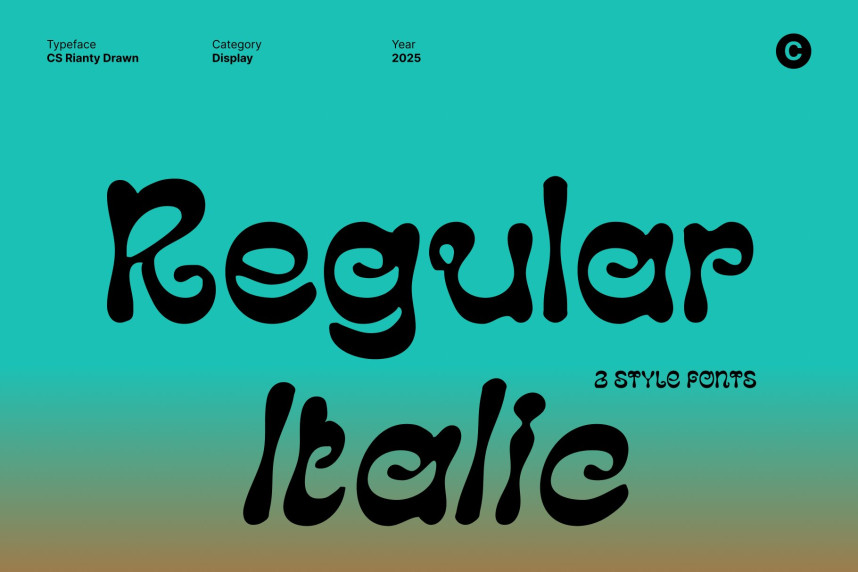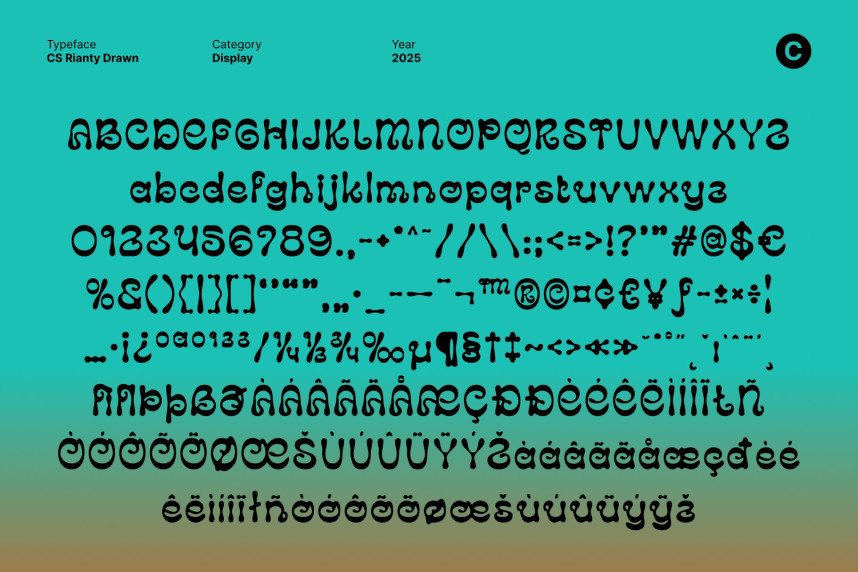
CS Rianty Drawn Font
CS Rianty Drawn Font – Trippy Psychedelic Display Font with Hand-Drawn Character Trippy Letterforms with Flowing Curves. With a strong trippy aesthetic, this display font features psychedelic curves and fluid shapes that feel bold, experimental, and visually expressive. Its unconventional structure creates a sense of movement and rhythm, making every word feel alive, dynamic, and full of creative energy. The font instantly delivers a funky, mind-bending visual impact.